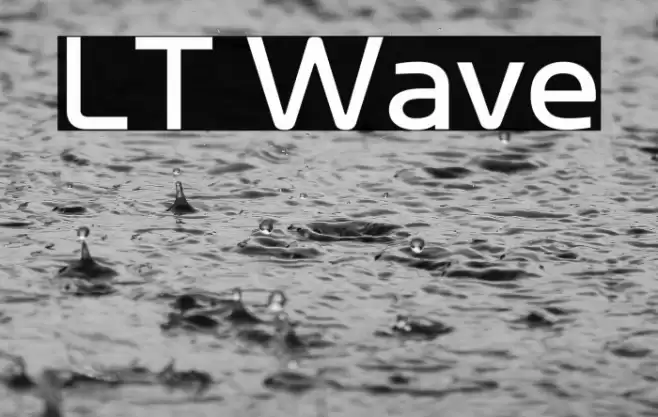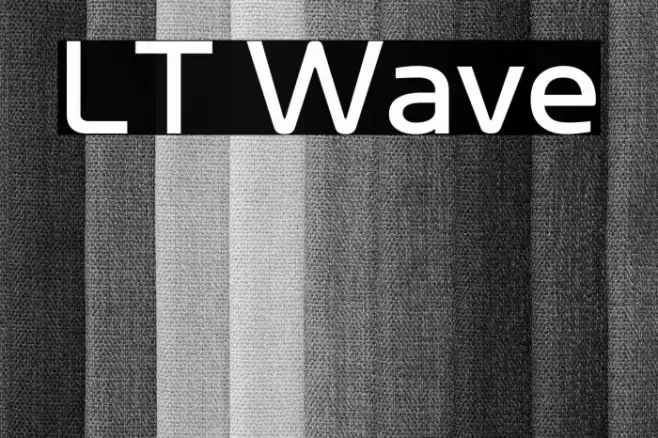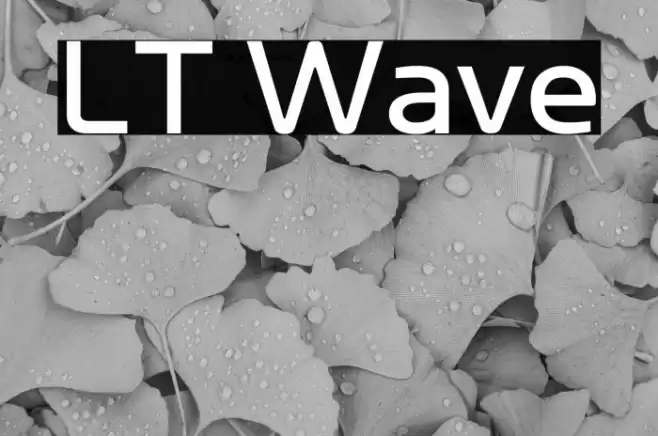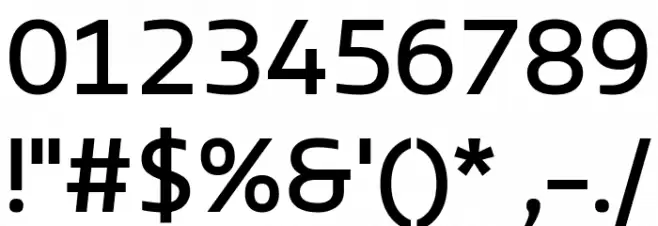
LT Wave Font
LT Wave Description
This font features a clean and modern sans-serif style with smooth curves and a balanced structure. The uppercase and lowercase letters are well-proportioned, offering a harmonious appearance. The numerals are clear and easily distinguishable, making them suitable for various applications. Special characters are included, maintaining the font's cohesive design. Its simplicity and readability make it versatile for both digital and print media.
A modern sans-serif font with smooth curves and balanced proportions from Regular fonts.
- Proposed Projects: Ideal for branding, web design, advertising, and editorial layouts.